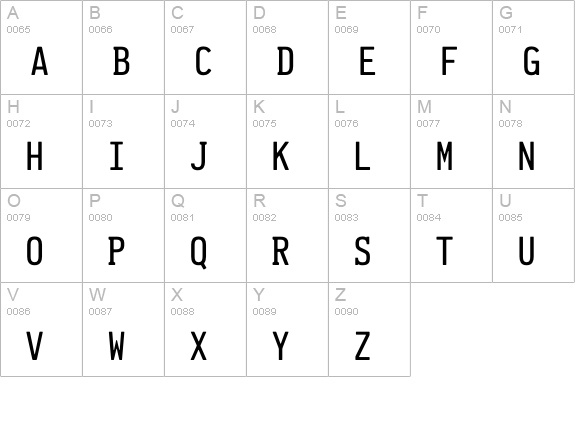
Pennsylvania Regular is the standard, neutral variant in the Pennsylvania typeface family \xE2\x80\x94 well suited to general body text, paragraphs, and standard typographic work.
Pennsylvania Regular font is a timeless classic that exudes elegance and sophistication. Its clean and crisp lines make it perfect for various design projects, such as branding, advertising, and editorial work. With its balanced letterforms and sturdy strokes, Pennsylvania Regular font delivers a sense of reliability and professionalism. This font is the epitome of versatility, as it seamlessly complements both traditional and modern designs. Whether you are creating a vintage-inspired logo or a contemporary website, Pennsylvania Regular font will effortlessly enhance your design aesthetic. One of the standout features of Pennsylvania Regular font is its readability. The carefully crafted letterforms ensure that every word is easily legible, making it an ideal choice for body text in print and digital media. This font is also optimized for screen use, ensuring that your website or app remains visually appealing on various devices. Furthermore, Pennsylvania Regular font is freely available to download at FontsMarket.com. This means that anyone can access and utilize this exceptional font without any cost. Its availability for free allows designers, students, and enthusiasts to explore their creativity without any limitations. Whether you are a professional designer or a beginner in the design world, Pennsylvania Regular font is a valuable asset that will elevate your projects to new heights. Its timeless beauty, versatility, and free availability make it an irresistible choice for designers worldwide. Download Pennsylvania Regular font today and experience the power of this exceptional typeface.